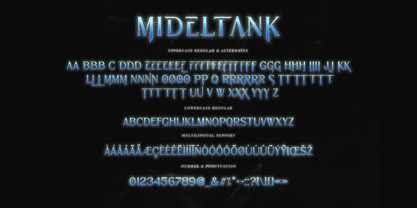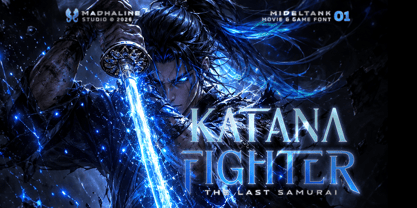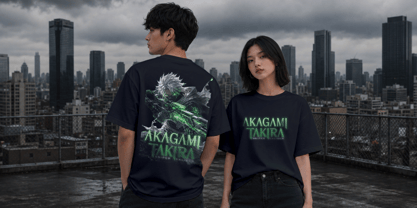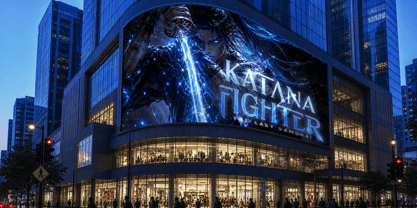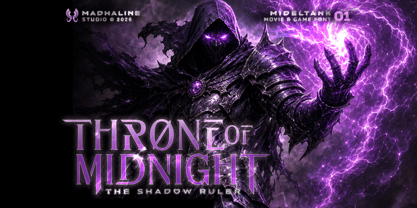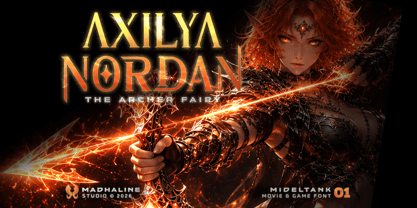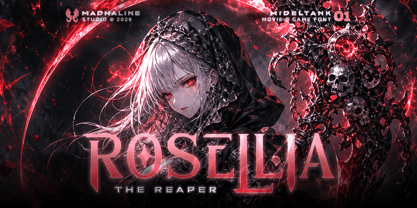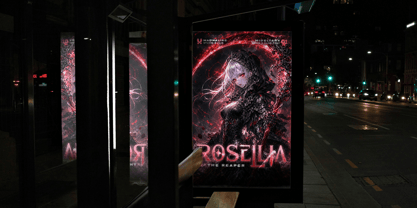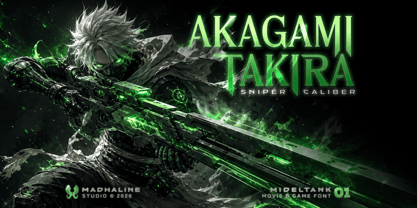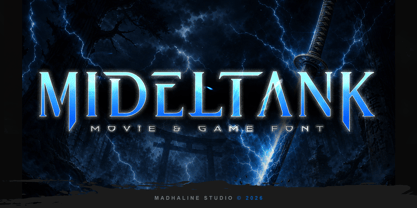
Mideltank
Die Schriftfamilie Mideltank wurde von Achmad Hanif Ulinuha entworfen und von Madhaline Studio veröffentlicht. Mideltank enthält 1 Stile. Mehr über diese Familie
MIDELTANK is a bold fantasy display font inspired by medieval legends, fantasy movies, RPG games, and epic adventures. It features sharp serif details, strong letterforms, and a cinematic style that gives every design a powerful and premium look.
Inspiration:
The font is inspired by legendary swords, ancient kingdoms, magical worlds, and heroic battles. Its sharp edges and elegant shapes create a perfect balance between fantasy and modern typography.
Perfect For:
• Game titles
• Movie logos
• Fantasy book covers
• Esports branding
• YouTube thumbnails
• Posters and banners
• Merchandise
• Website headers
• Social media graphics
• Logo design